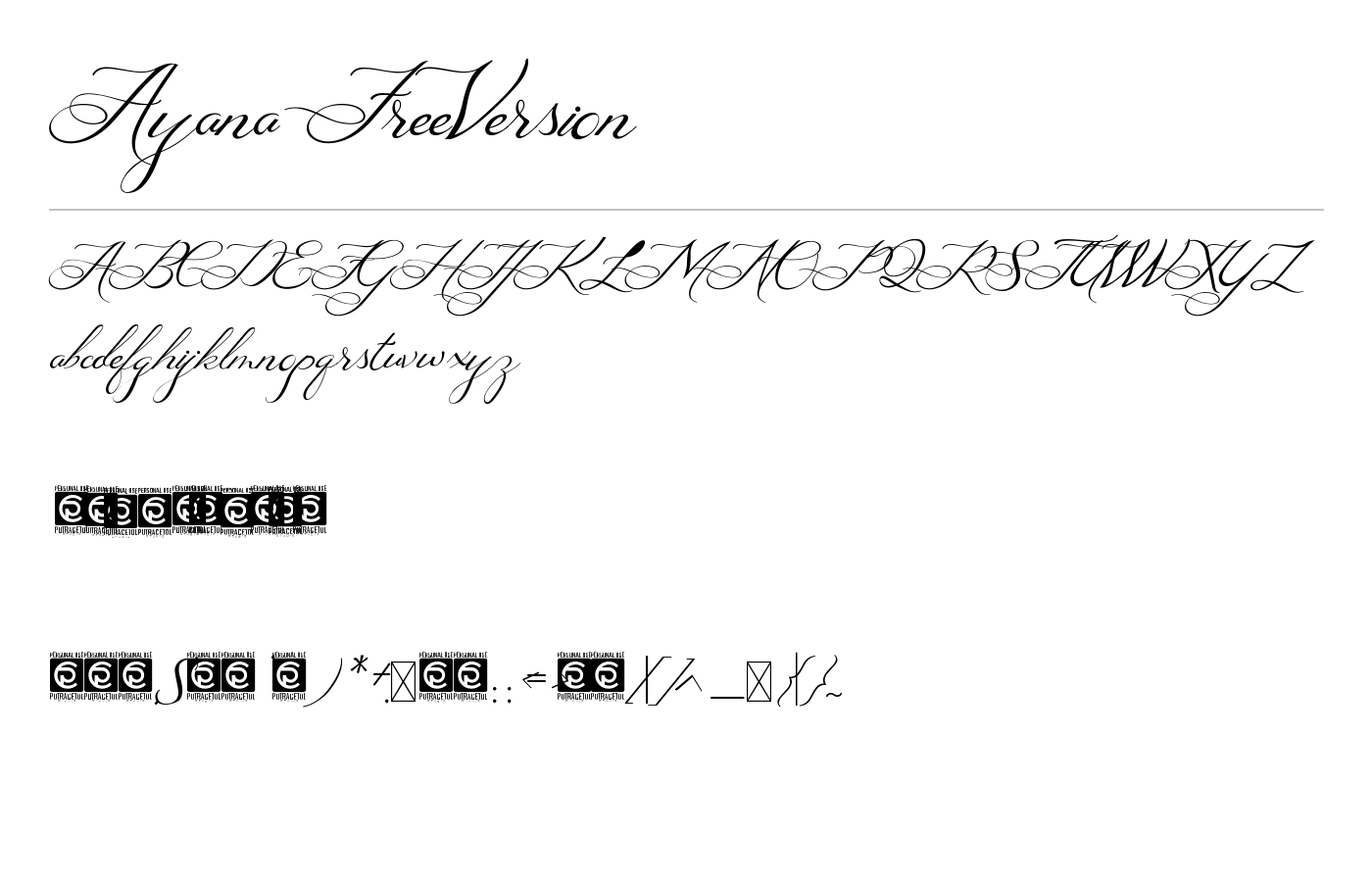
Ayana is an elegant script font characterized by its delicate, flowing strokes and ornamental flourishes, creating a refined and graceful appearance. Its high contrast, slender letterforms with intricate swashes make it ideal for sophisticated branding, wedding invitations, and luxury packaging where a touch of classic charm is desired. This font excels in decorative and headline use, conveying a sense of romance and timeless beauty.
Ayana Font
About Ayana Font